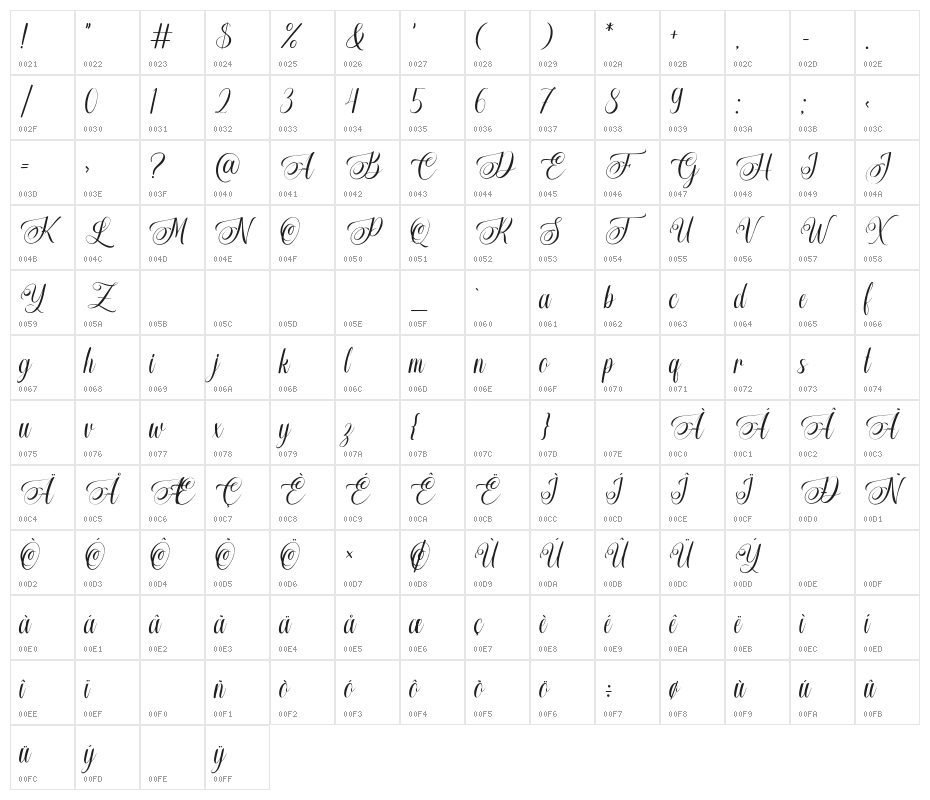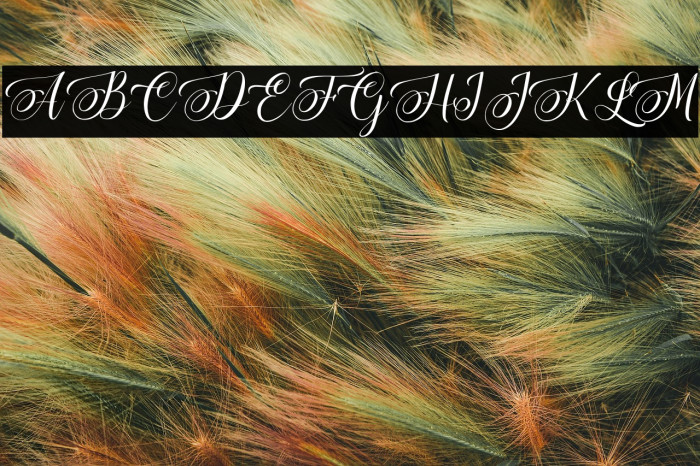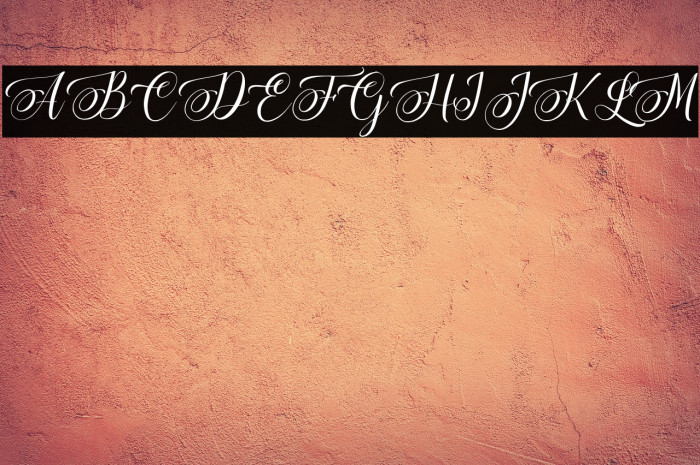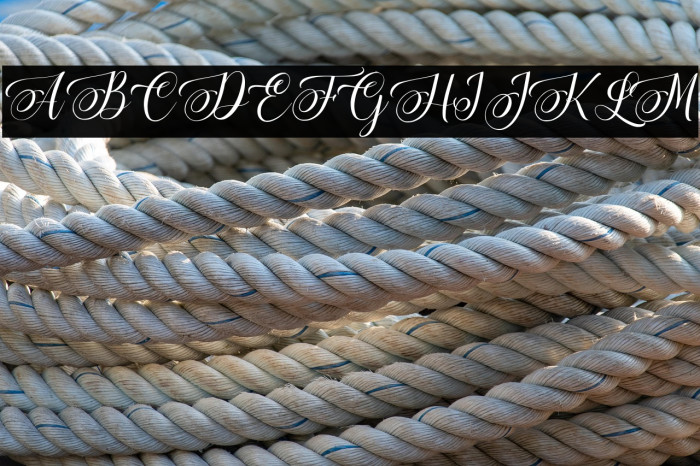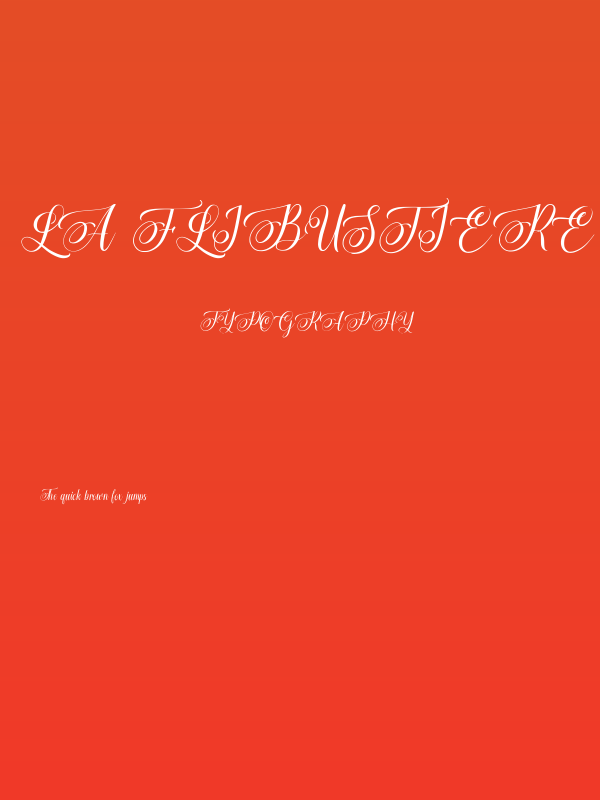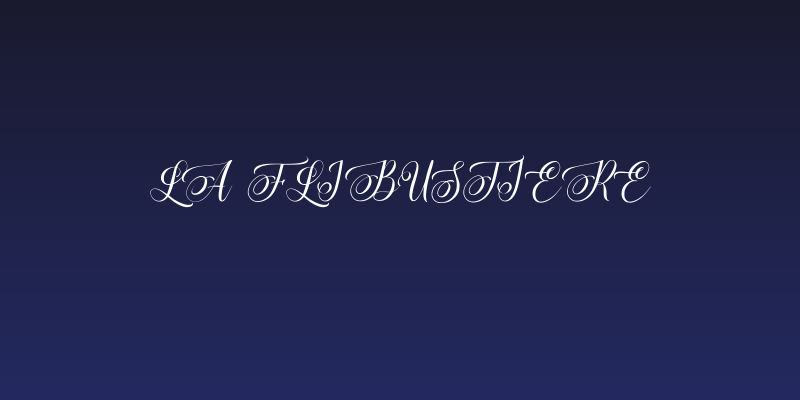
La Flibustiere Font
La Flibustiere Description
This elegant script font features a flowing, cursive style with intricate swashes and flourishes. The uppercase letters are particularly ornate, with loops and curves that add a sense of sophistication and grace. The lowercase letters maintain a consistent flow, making them highly readable despite their decorative nature. The numerals are designed to match the overall style, with slight variations in stroke thickness that add to their charm. Special characters are included, each crafted with the same attention to detail, ensuring a cohesive look across all text elements.
| Use Case | Invitations, Branding, Headlines |
| Proposed Projects | Ideal for wedding invitations, elegant branding, luxury product packaging, and decorative headlines. |